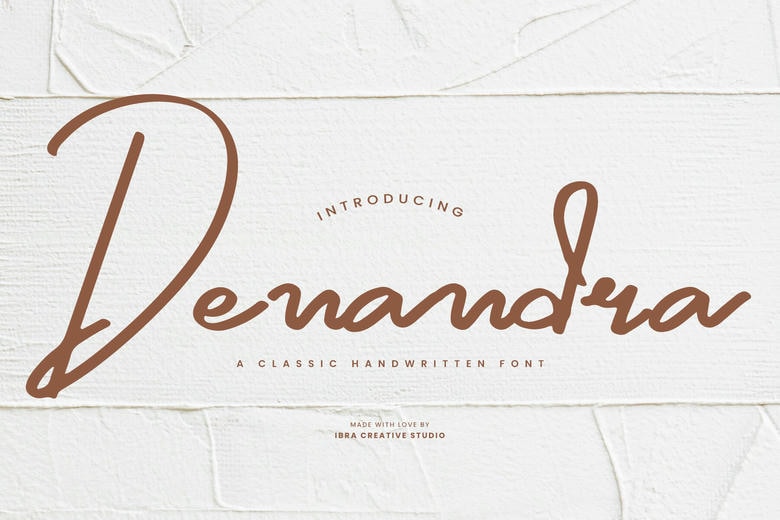
Denandra Font
Denandra is a handwritten font that effortlessly captures the essence of handwritten elegance. With its graceful strokes and carefully crafted curves, this typeface brings a sense of authenticity and warmth to any project. The deliberate irregularities in each character lend a human touch, evoking the charm of traditional handwriting. Denandra strikes a perfect balance between legibility and artistic flair, making it versatile for various design applications.
Denandra Handwritten Script Font